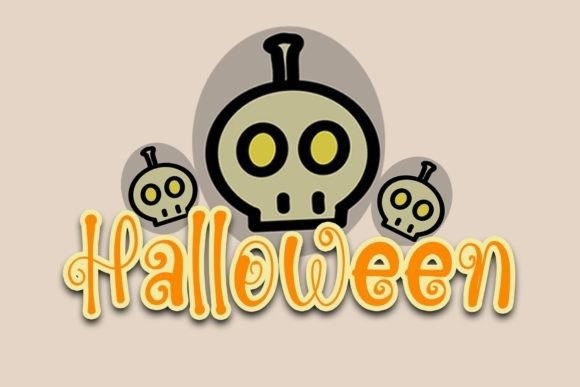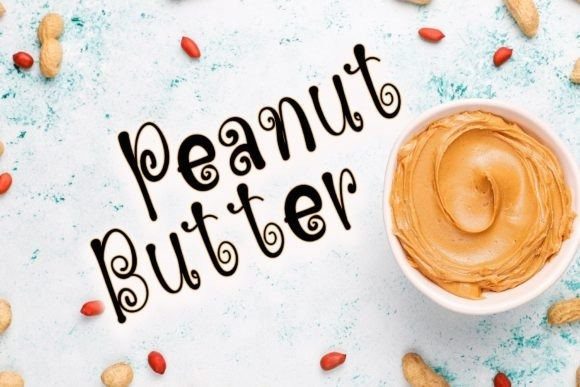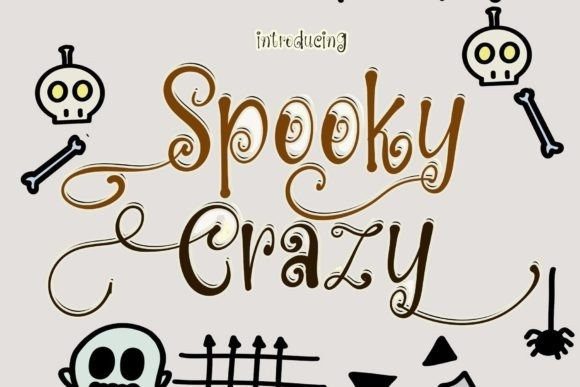
Spooky Crazy Font
Spooky Crazy Font is a cool, simple and playful display font. Incredibly versatile, this font fits a wide pool of designs, elevating them to the highest levels. Add this font to your favorite creative ideas and notice how it makes them come alive